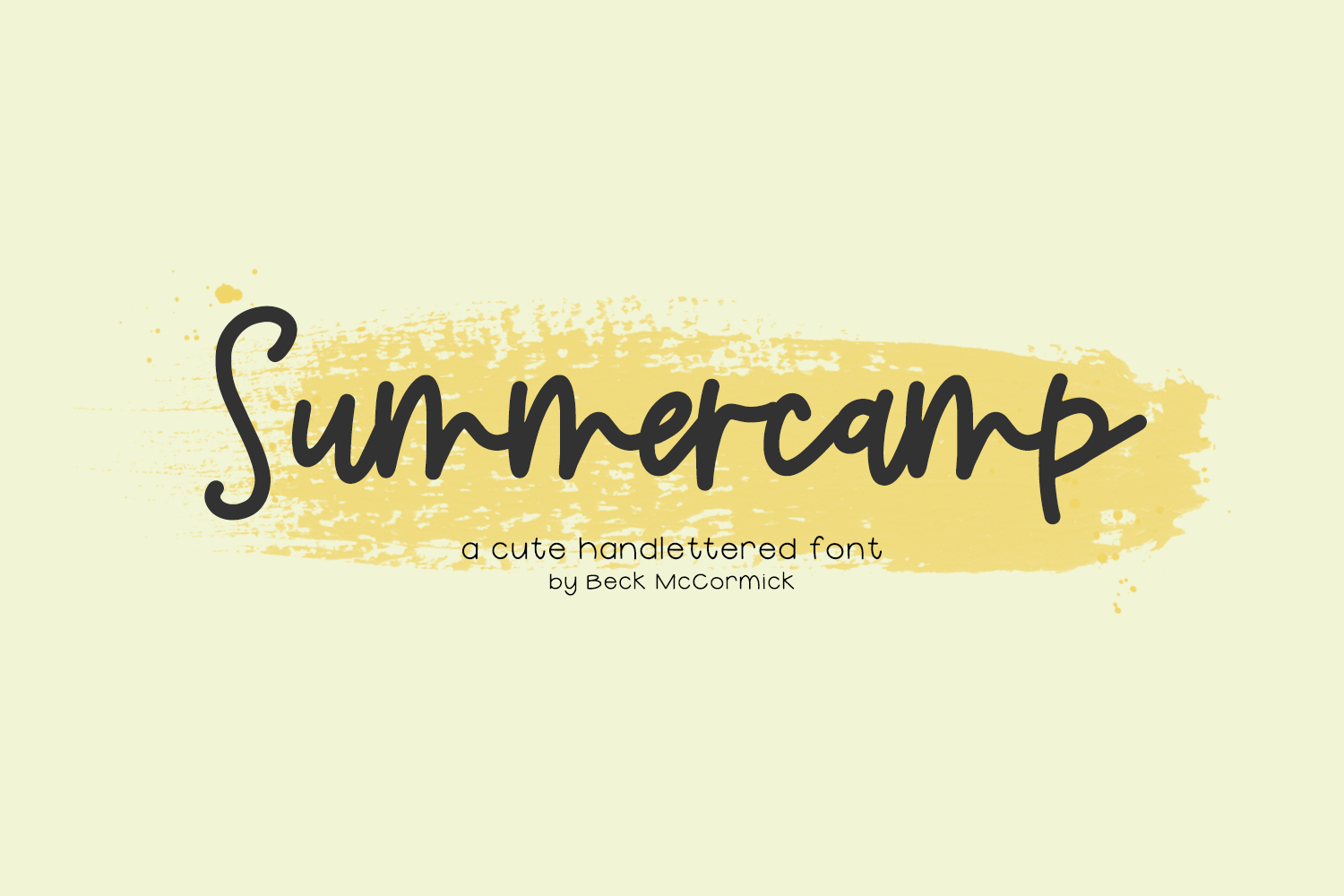
Introducing Summercamp Script, a cute monoline script with a summery feel.
Summercamp is best for:
- feminine, crafty projects with your Cricut or Silhouette machine, or your SVG design business
- farmhouse decor and crafts
- digital planners & apps like Goodnotes
- website design + website accents, blog design
- feminine graphic tee shirt design & other apparel